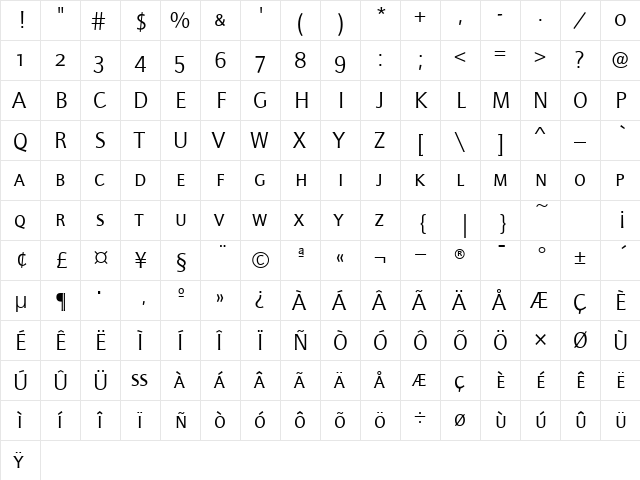
QuaySansSCITCTT Regular
| Foundry | International Typeface Corporation |
| Designer | David Quay |
Design Context for QuaySansSCITCTT Typeface
QuaySansSCITCTT is a composed and adaptable typeface that performs quietly and consistently across a wide range of design contexts.